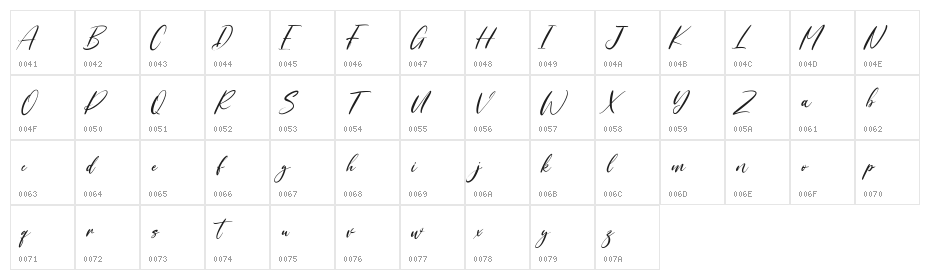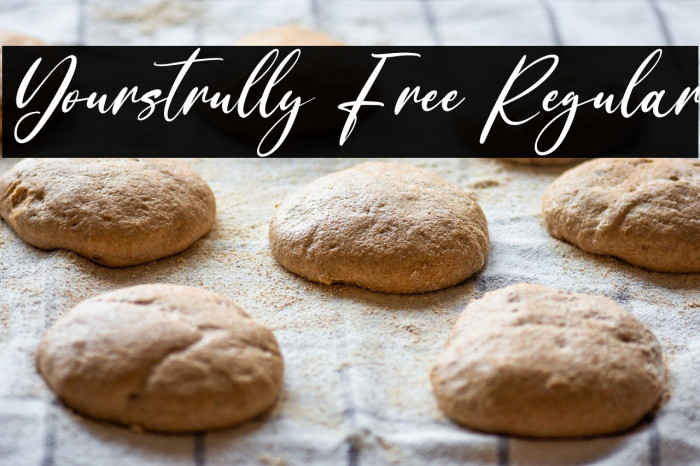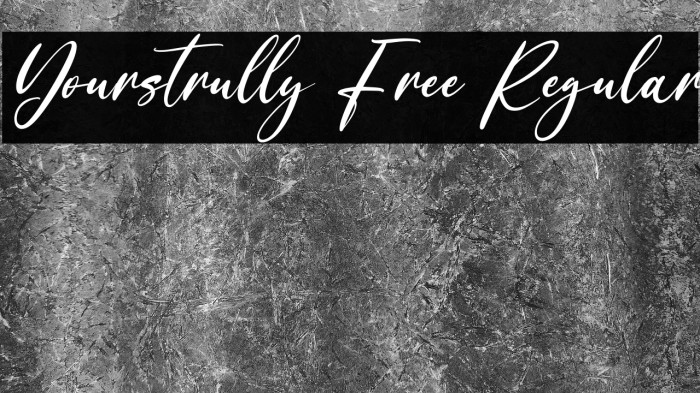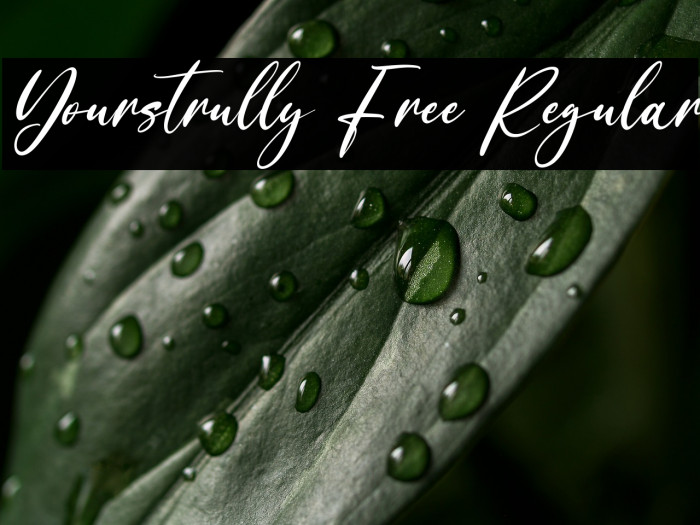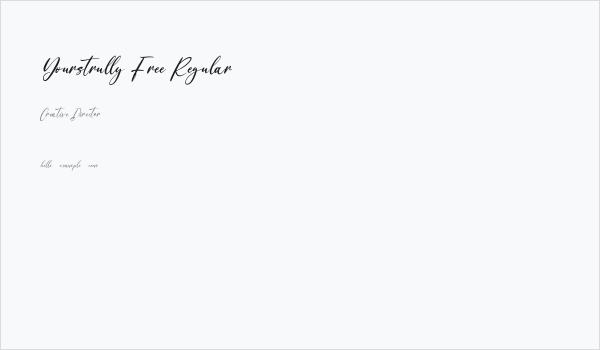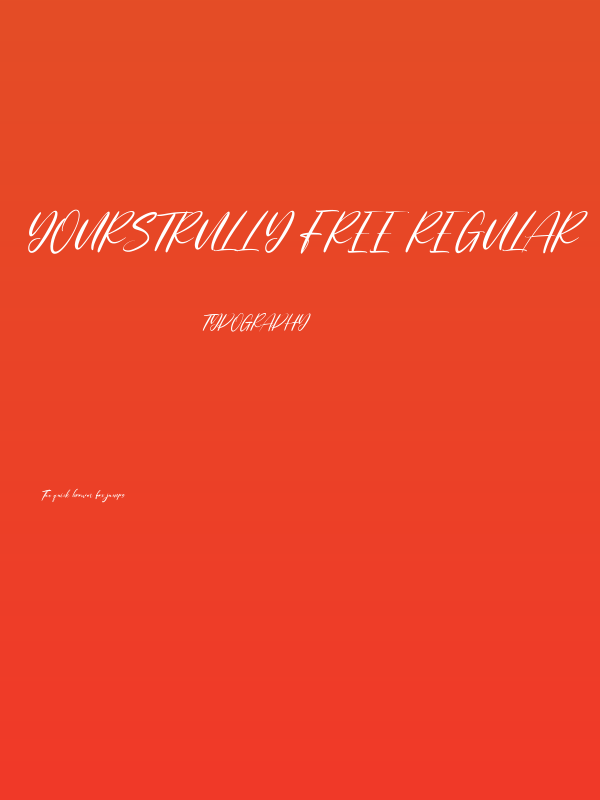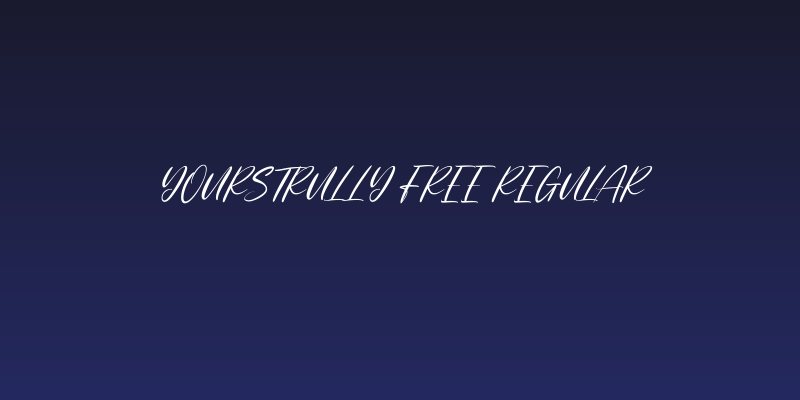
Yourstrully Free Regular Font
Yourstrully Free Regular Description
A flowing, elegant script font with a handwritten style, featuring smooth curves and varying stroke widths.
| Proposed Projects | Wedding invitations, greeting cards, personal branding. |